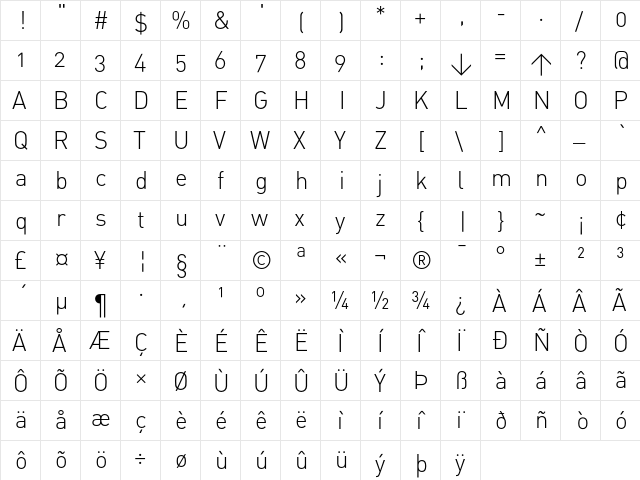
DIN LightAlternate Font Preview
DIN LightAlternate
DIN LightAlternate Font Details
Design Context for DIN Typeface
DIN is a composed and adaptable typeface that performs quietly and consistently across a wide range of design contexts. Its slender proportions lend an understated elegance to any composition.
Pro Tip: Use DIN in both headline and body roles to test its range before committing to a single application.